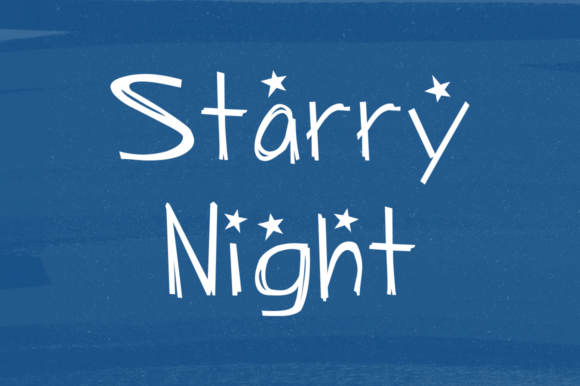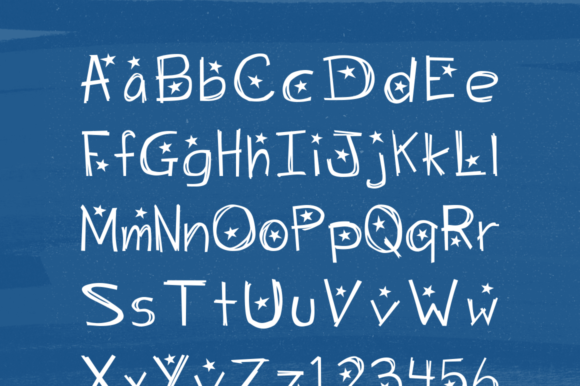
Starry Night Font
About Starry Night Font
This slighty messy handwritten font was inspired by the scrawl of a teenager given a marker. Meaning it was inspired by my own quick writing at the time. Right down to the stars.